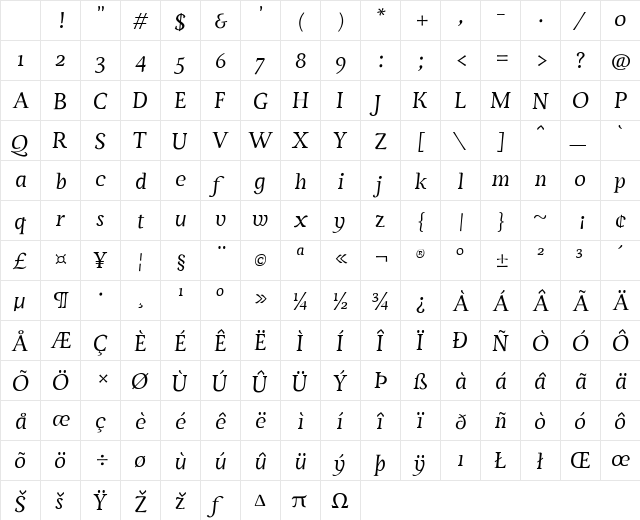
Complete Servus Text Display Italic display glyph index. Displaying only characters natively supported by Servus Text Display Italic display font.
Servus Text Display Italic is built around its visual character rather than neutral utility - its distinctive forms are designed to make an impression at display sizes. The slanted form adds forward momentum and visual energy.
Font Pairing: Pair with a clean neutral sans-serif for body copy to let Servus Text Display Italic's character lead without overwhelming the composition.
Pro Tip: Use Servus Text Display Italic exclusively at display sizes - it was designed to be seen, not read at length. Let a neutral companion handle body copy.